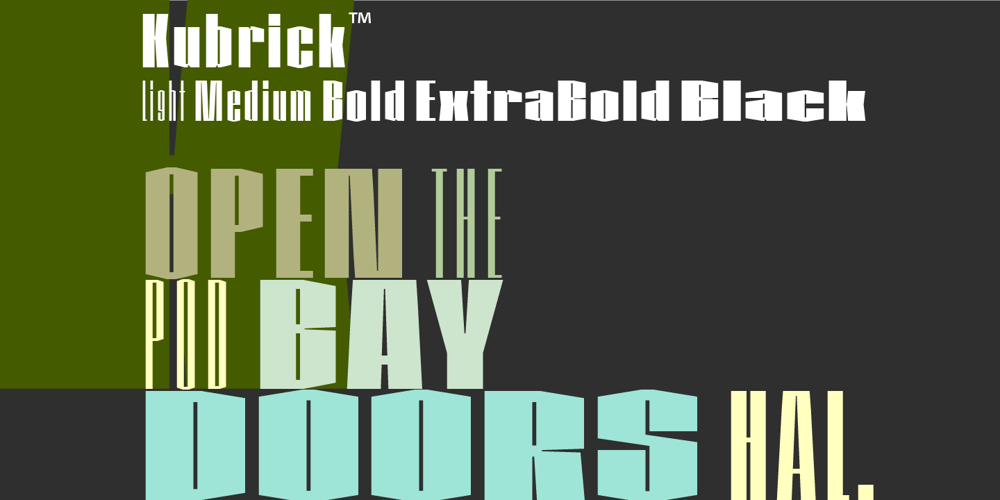
Kubrick Font Family was designed by David Vereschagin and published by Quadrat. Kubrick contains 5 styles and family package options. Kubrick is an experiment in extremes. The Light font is very tall and slender, the Black font is very massive, and Kubrick’s slender counters push some of its glyphs to the edge of recognition. The thin counters and negative spaces also give text set in Kubrick a definite visual sparkle, especially in all-uppercase settings. Because of its extreme letterforms, Kubrick is recommended only for large display use. The default letterspacing is set fairly wide to keep text legible. Kubrick was a double-experiment. One part of it was to see how heavy and massive a typeface I could make while still keeping it legible. The other part was to develop a Multiple Master font. Multiple Master fonts were a format developed by Adobe that allowed the user to change things like the weight and width of a typeface. Monollith started as just such a Multiple Master typeface, but when Adobe discontinued the Multiple Master format, I stopped work on the typeface. Later I decided to continue work on it, but as five separate font weights: Light, Medium, Bold, ExtraBold and Black. Very rectilinear letterforms with extremely narrow counters and negative spaces. The five fonts go from very thin and condensed to very heavy and extended. Use in large display settings where unornamented high visual impact is desired.